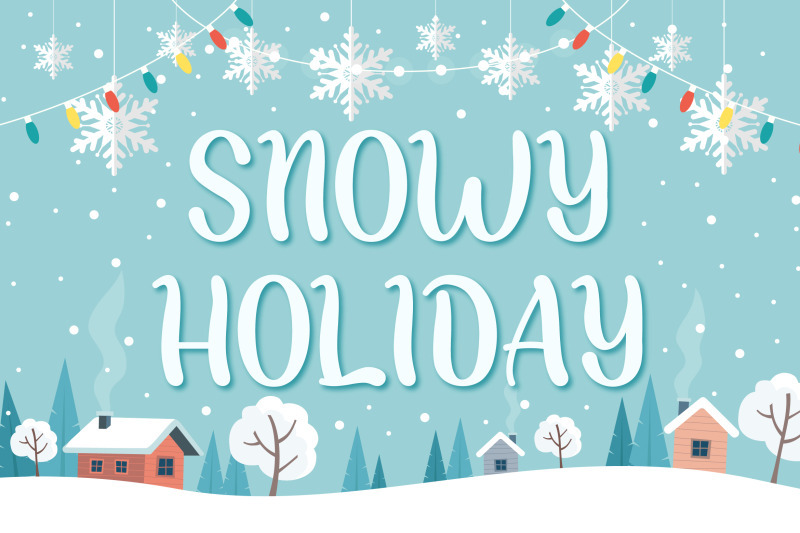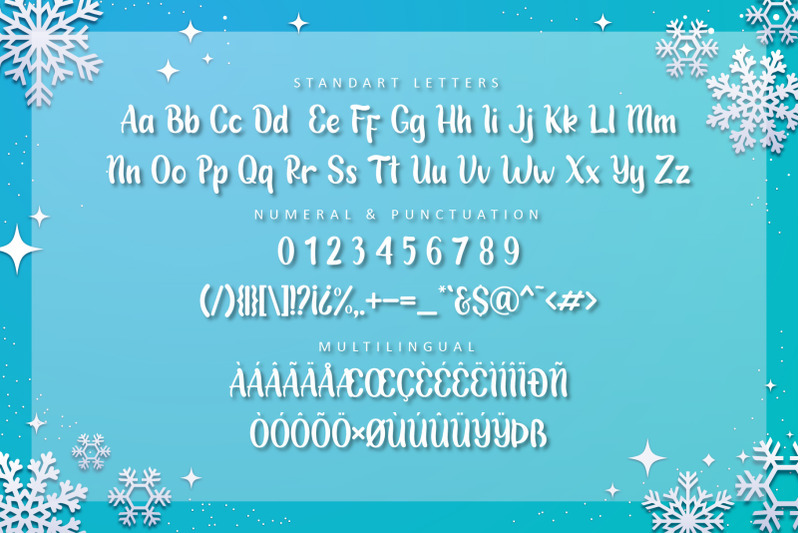
Freebie Wednesday: Free Snowy Holiday Font
This week’s freebie on the Hungry Jpeg site is the Snowy Holiday Font by Aqeel_Art! Snowy Holiday is a beautiful display font for a variety of designs. Snowy Holiday can be used for products such as handcraft, product packaging, quotes, product design, craftsmen, lanels, photography, watermarks, logos & branding. Happy Designing!